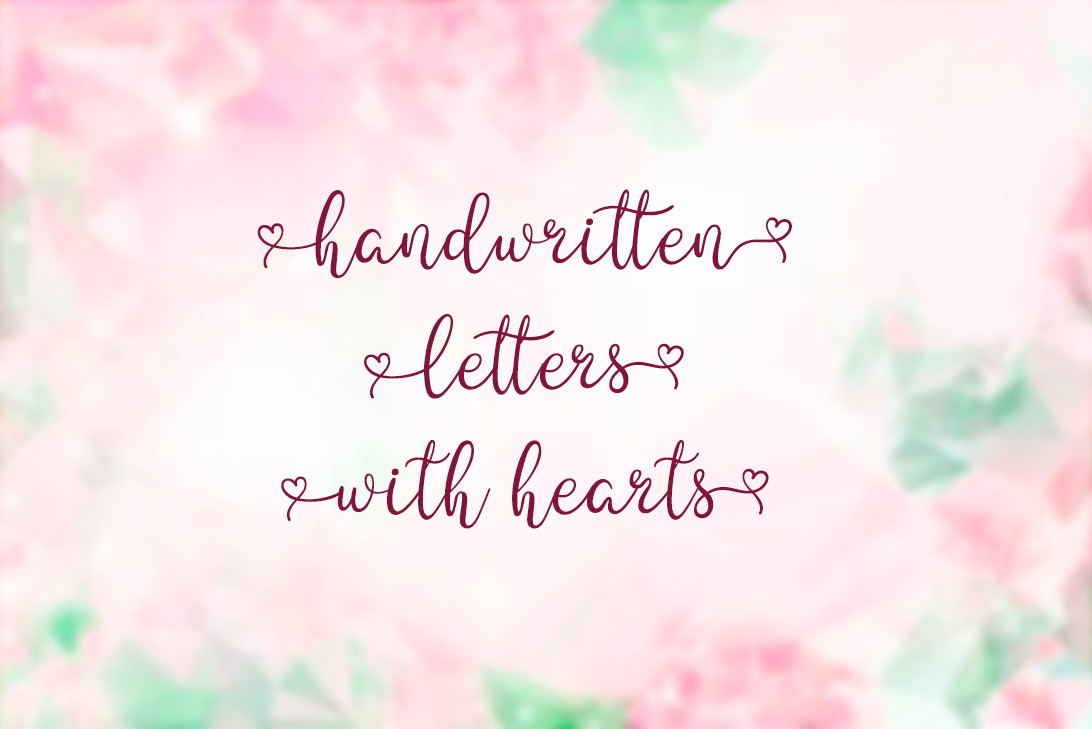
Lovely font with hearts
Handwritten font with hearts for your crafts. Each letters was made very carefully. So you may just type with it. Any message would look cute.